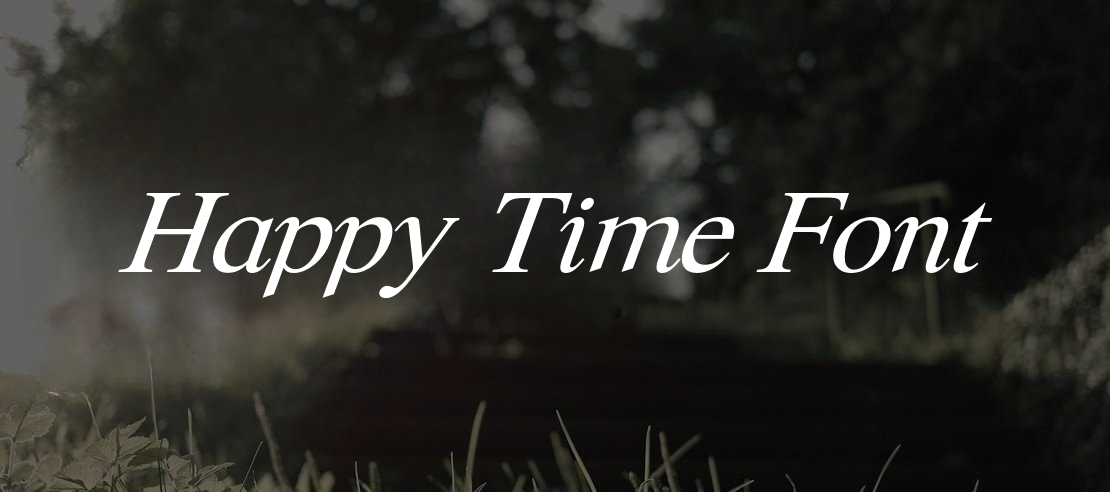
In this article, I shall introduce to you an attractive and stunning typeface. Happy Time Font is a stunning and unique typeface. Happy Time typeface is a serif typeface with a unique design. An American typeface designer created it.
Happy Time typeface is available in three styles regular, bold, and italic. Happy Time typeface is perfect for headlines, titles, and short blocks of text. It’s also great for creating contrast between body copy and headings.
Happy Time typeface has a complete set of characters including upper and lowercase letters, numbers, punctuation, and symbols. This typeface is similar to the otama font. This typeface also supports multiple languages.
Creator of Happy Time Font
This amazing and lovely typeface is created by American typeface designer Robert Jablonski for the foundry KineticPlasma Fonts in 2015.
This font style is created with a unique and consistent style. This single attractive style is a combination of multiple characteristics, including capital and small letters, digits, punctuations, symbols, special characters, glyphs, and various language support.
View of Happy Time Font
Is Happy Time texture a Modern style?
Yes, the Happy Time typeface is a modern style.
Is the Happy Time typeface Display font?
Yes, the Happy Time typeface is a Display style.
Is Happy Time typeface good for titles?
Yes, the Happy Time typeface is a good style for titles.
Who created the Happy Time typeface?
The Happy Time typeface was created by designer Ainsley Wagoner in 2017.
What Microsoft font is similar to Happy Time Font?
The Microsoft font that is most similar to the Happy Time typeface is Segoe UI.